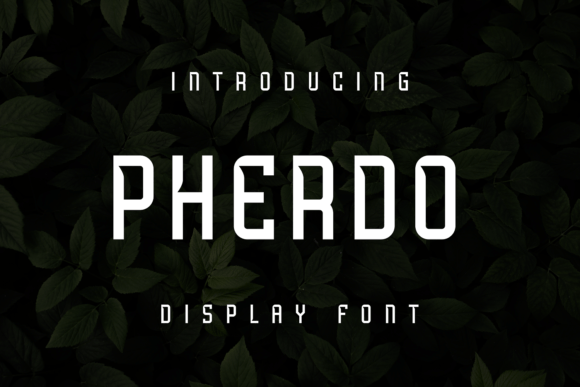
Step into the realm of boundless creativity, where imagination meets innovation. Pherdo Font, a captivating display font, awaits your artistic touch, ready to transform your designs into masterpieces. This remarkable font, meticulously crafted by the talented lelevien, is a symphony of elegance and power, designed to captivate and inspire.
With its bold and striking presence, Pherdo Font commands attention, demanding to be seen. Its clean lines and sharp edges exude a sense of modernity, while its intricate details reveal a touch of timeless sophistication. This font is not merely a collection of letters; it's a gateway to a world of limitless creative possibilities.
Unleash your inner architect and let Pherdo Font be your trusted companion in constructing visual wonders. Its strong and sturdy structure is reminiscent of towering skyscrapers, evoking a sense of stability and strength. Use it to craft logos that soar towards the heavens or create headlines that command attention like a beacon of light.
Pherdo Font's versatility knows no bounds. Whether you're designing posters that demand attention, social media graphics that pop, or website headers that leave a lasting impression, this font has you covered. Its adaptability extends to a wide range of projects, making it an indispensable tool in any designer's toolkit.
With Pherdo Font by your side, you'll never again struggle to find the perfect font for your creative projects. Its distinct personality and eye-catching charm will elevate your designs to new heights, leaving a lasting impact on your audience. Embrace the power of Pherdo Font and unlock a world of creative possibilities.